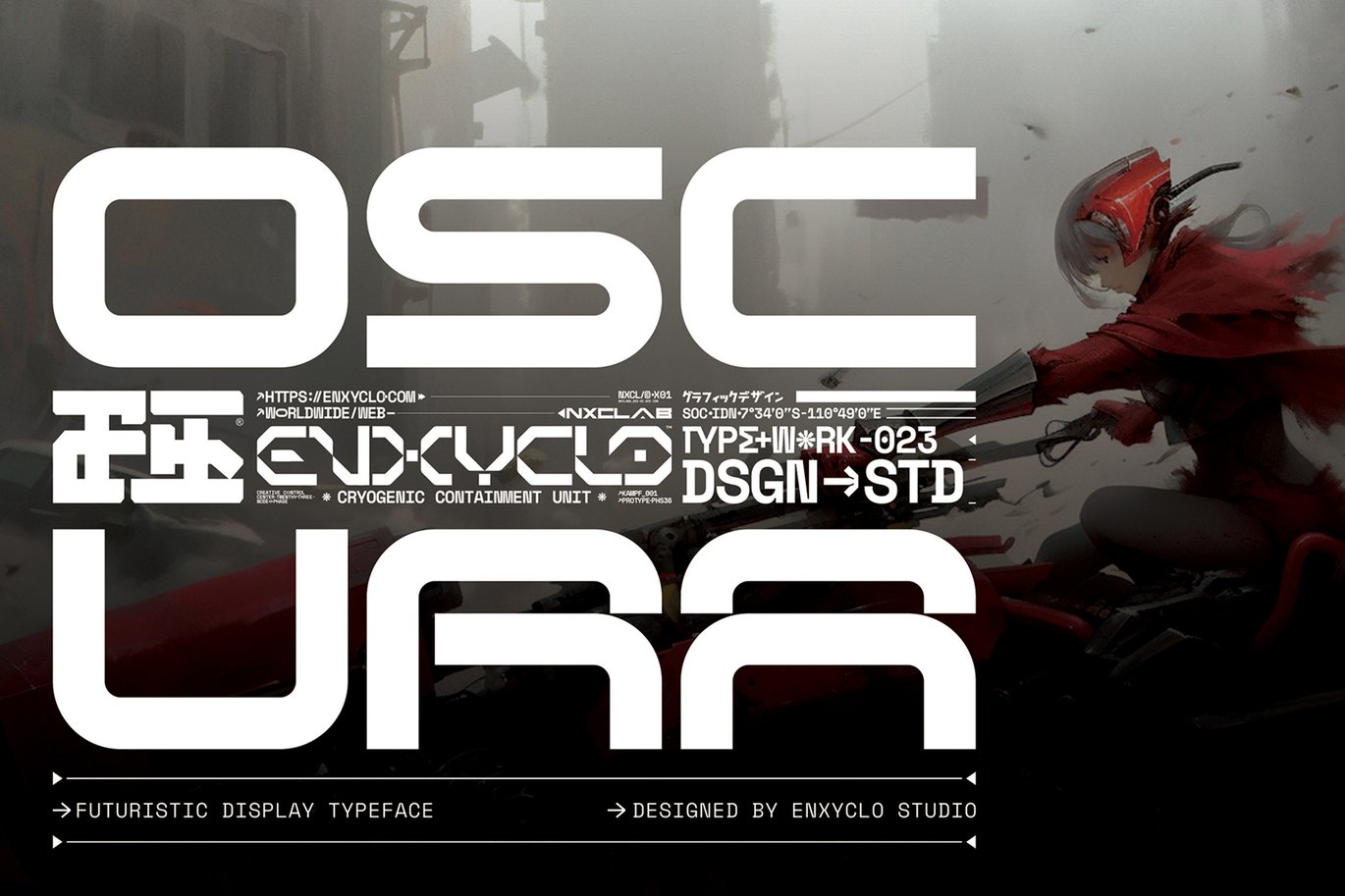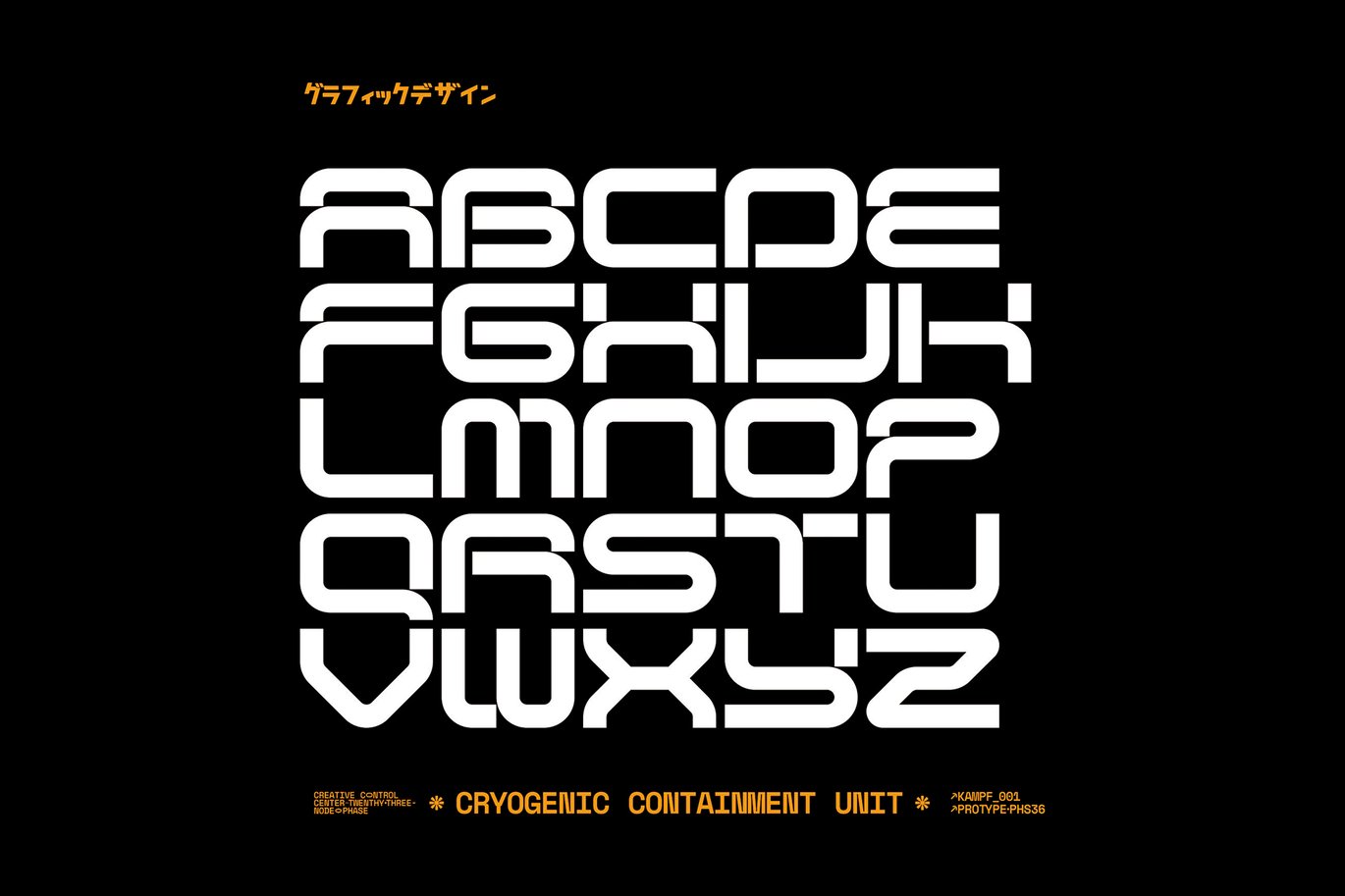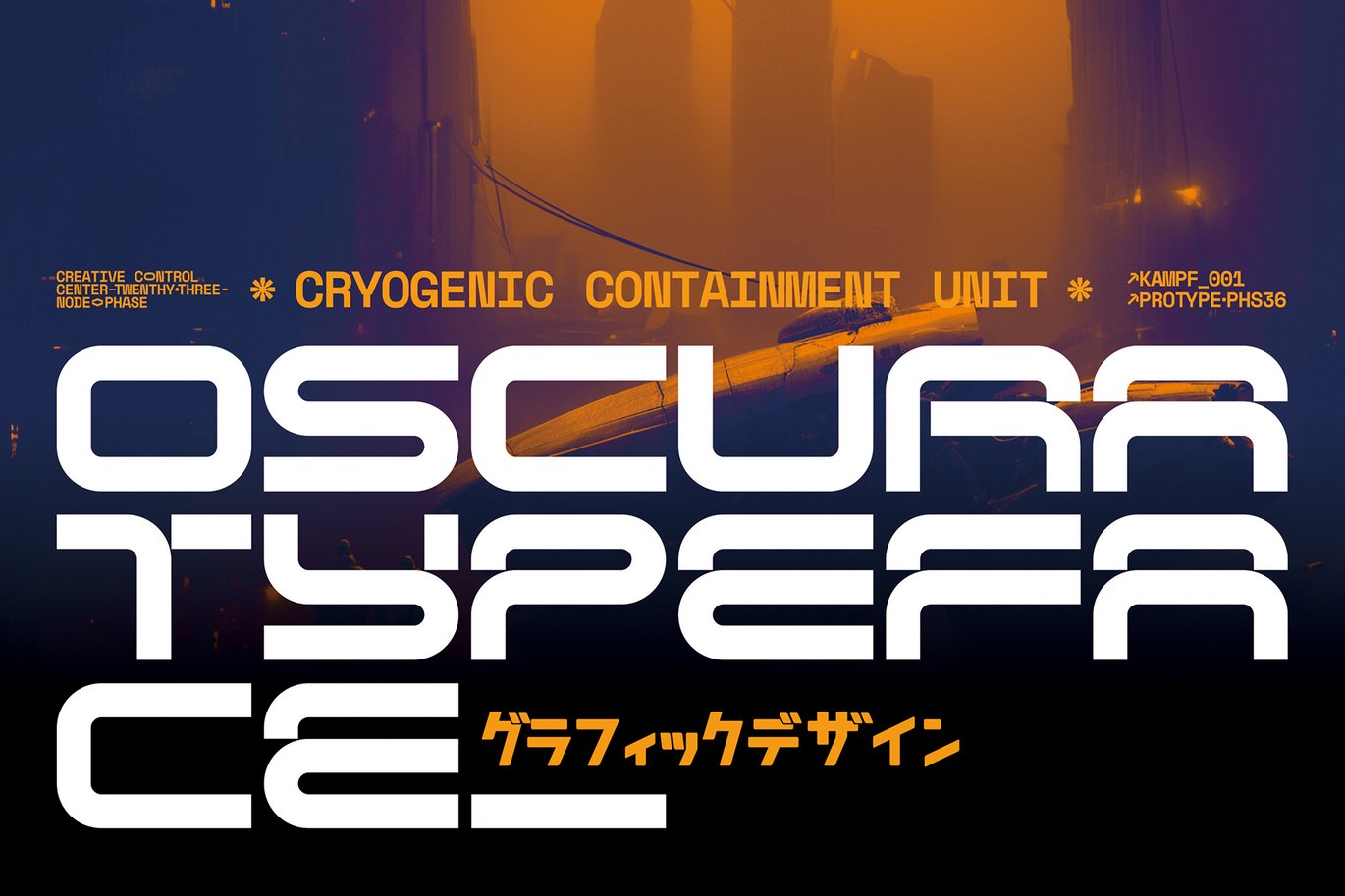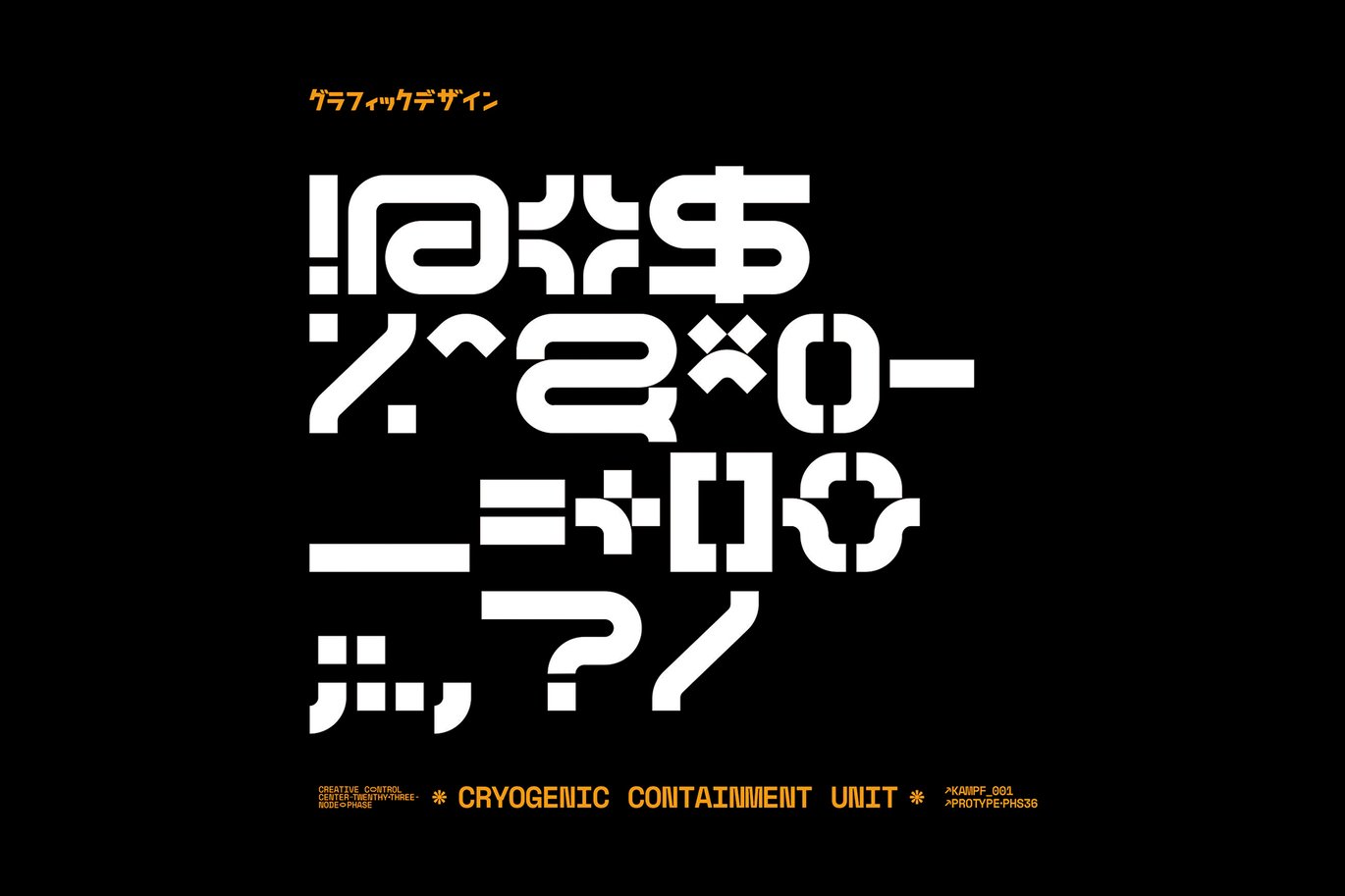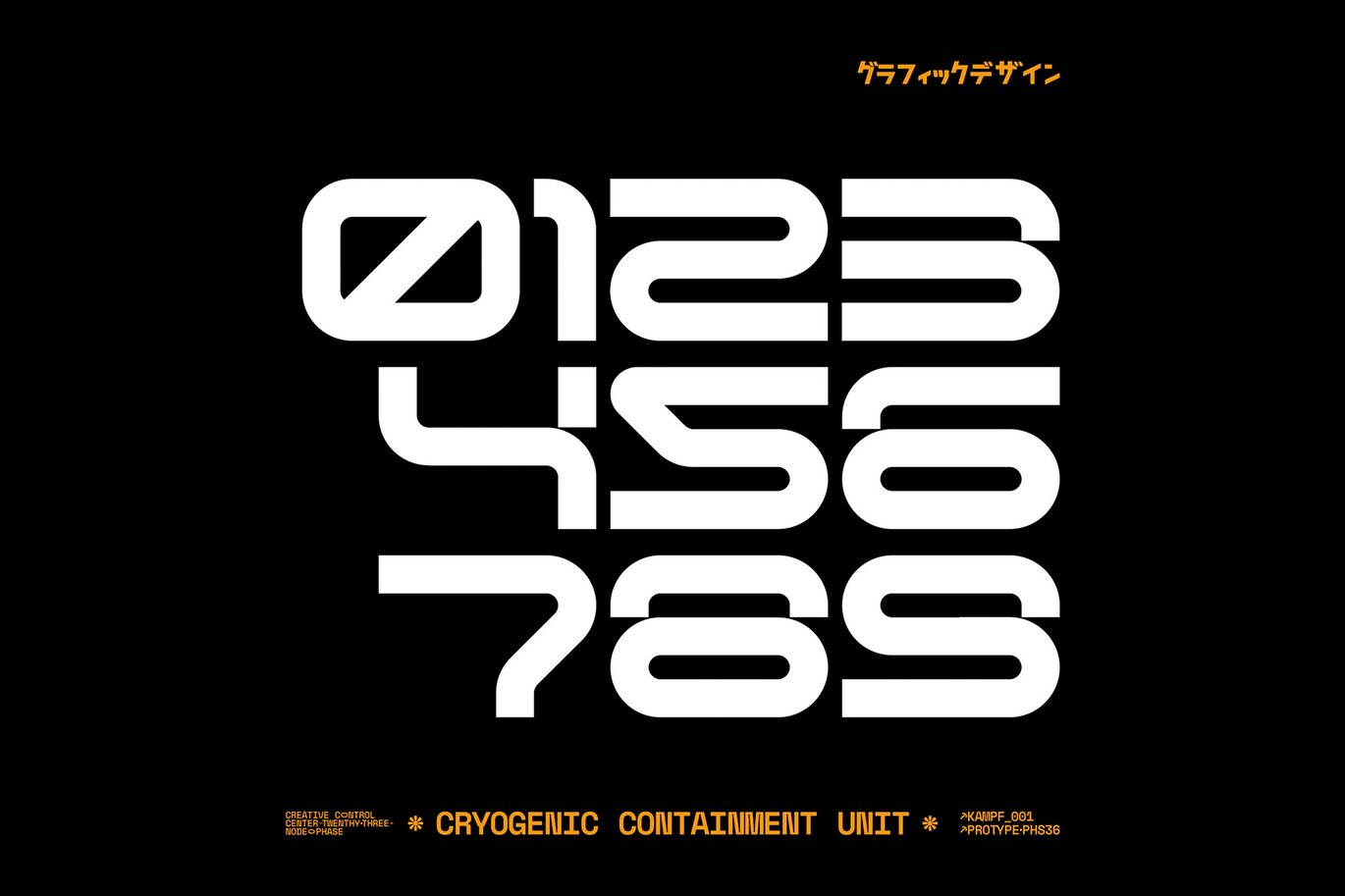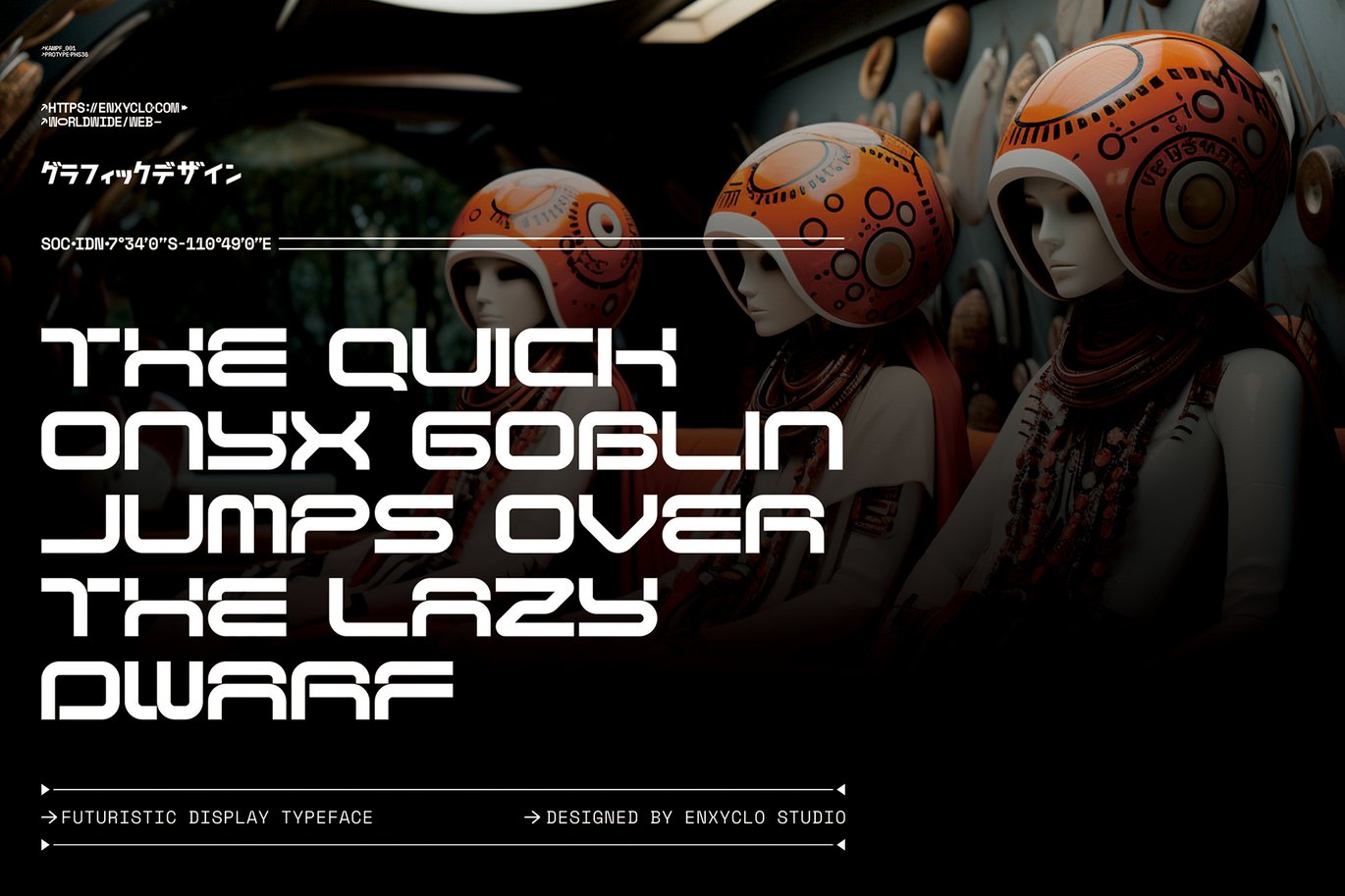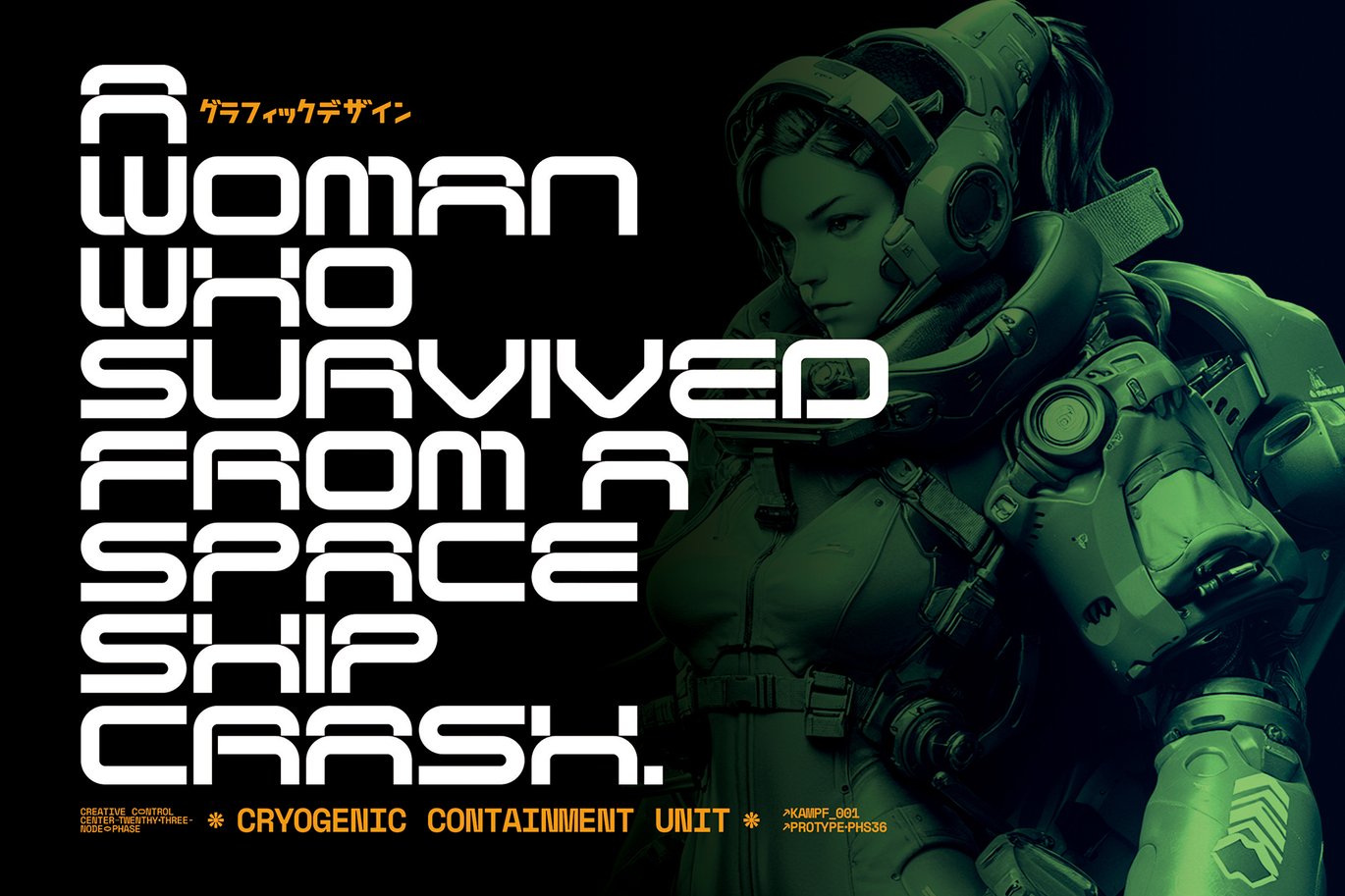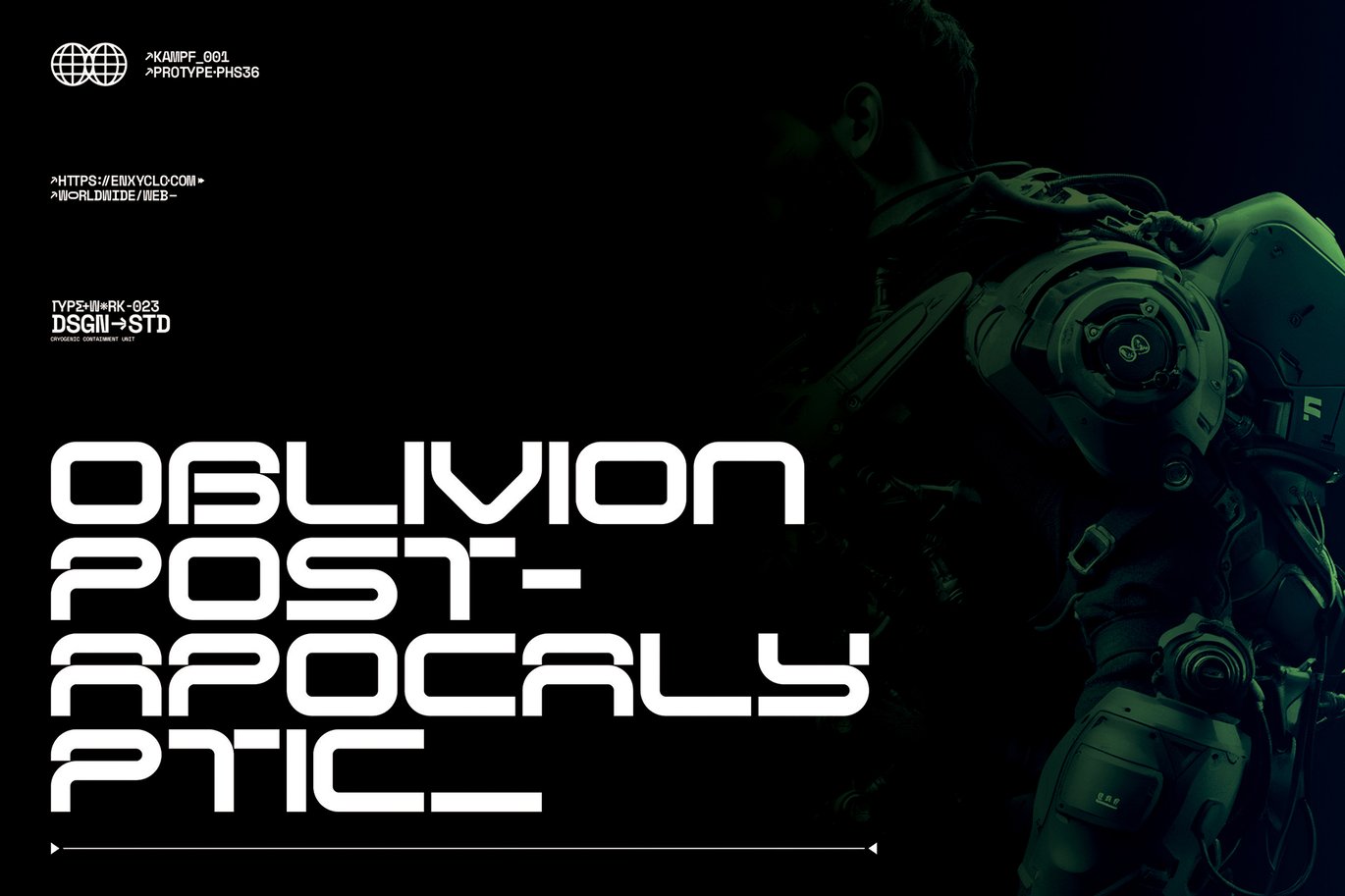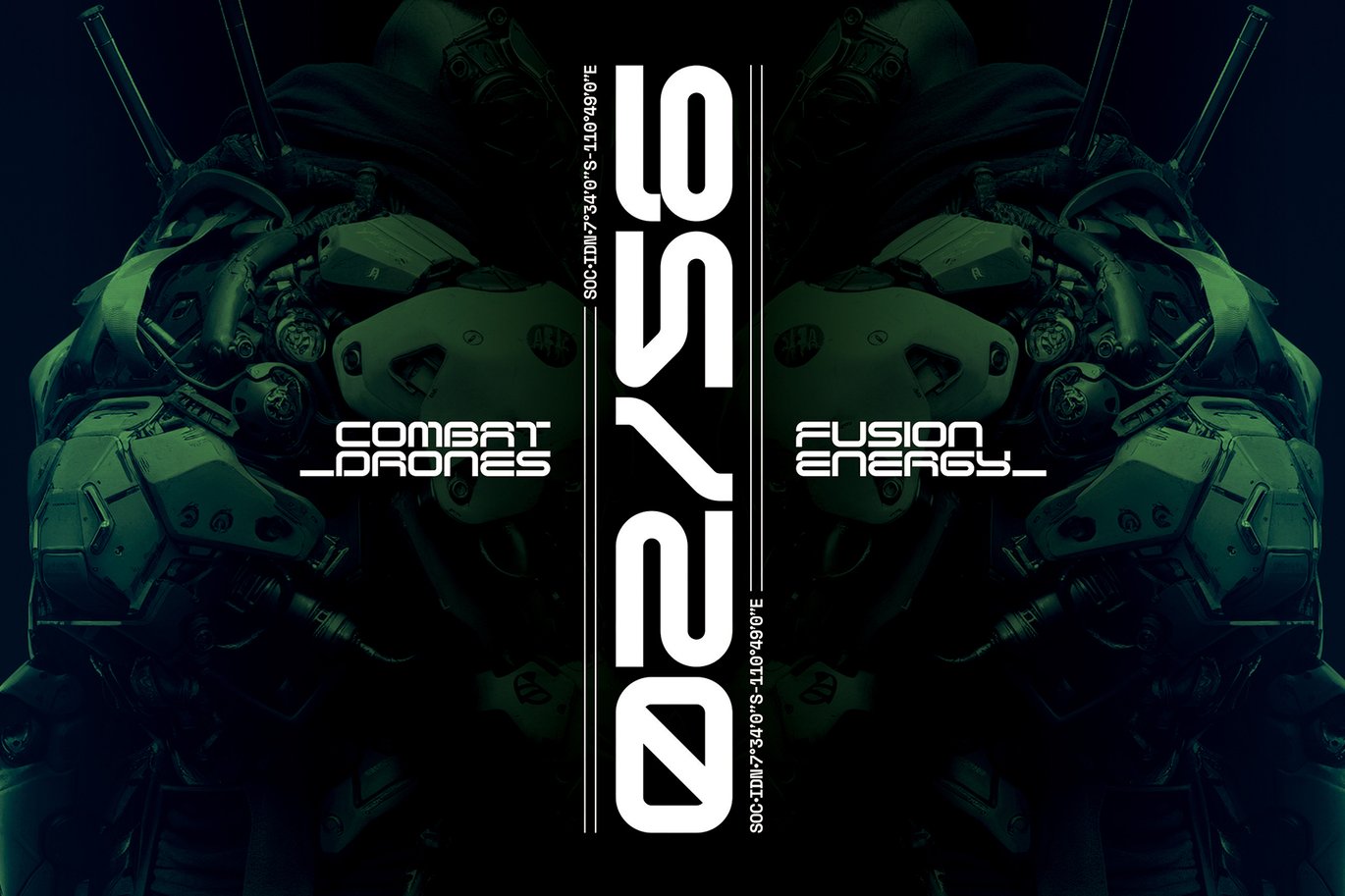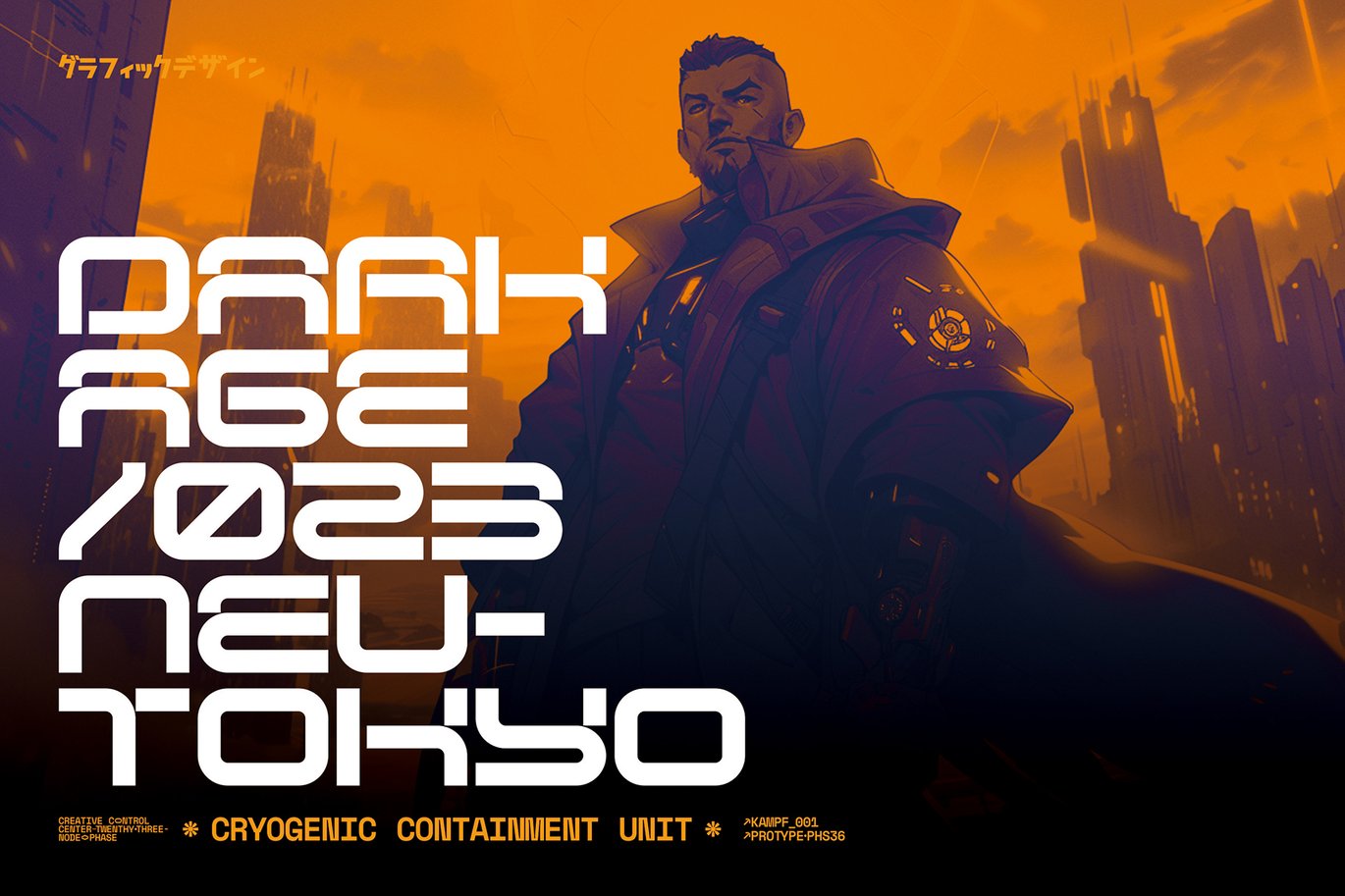
Oscura – Futuristic Cyberpunk Display Font
OSCURA is futuristic cyberpunk tech game y2k sci-fi display font. The design of typeface will make your project more powerful and inspiring. With this beautiful futuristic display font, absolutely you can make your project stand out from the rest. See the previews above to get some inspiration on how to use them.